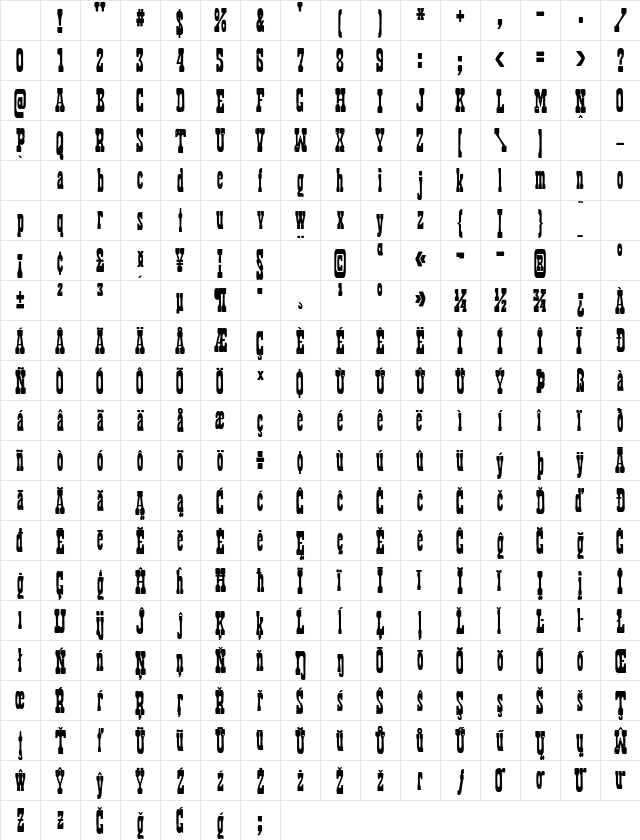
Complete zai Western Kurjer Zamojski Regular glyph index. Displaying only characters natively supported by zai Western Kurjer Zamojski Regular font.
zai Western Kurjer Zamojski echoes the hand-painted signage and woodblock typography of the American frontier, with a warm, rugged personality.
Font Pairing: Combine zai Western Kurjer Zamojski with a simple slab or neutral sans - period-accurate companions reinforce the vintage feel without competing for attention.
Pro Tip: Use zai Western Kurjer Zamojski for short, impactful bursts of text - it shines in poster headlines and product names rather than extended copy.